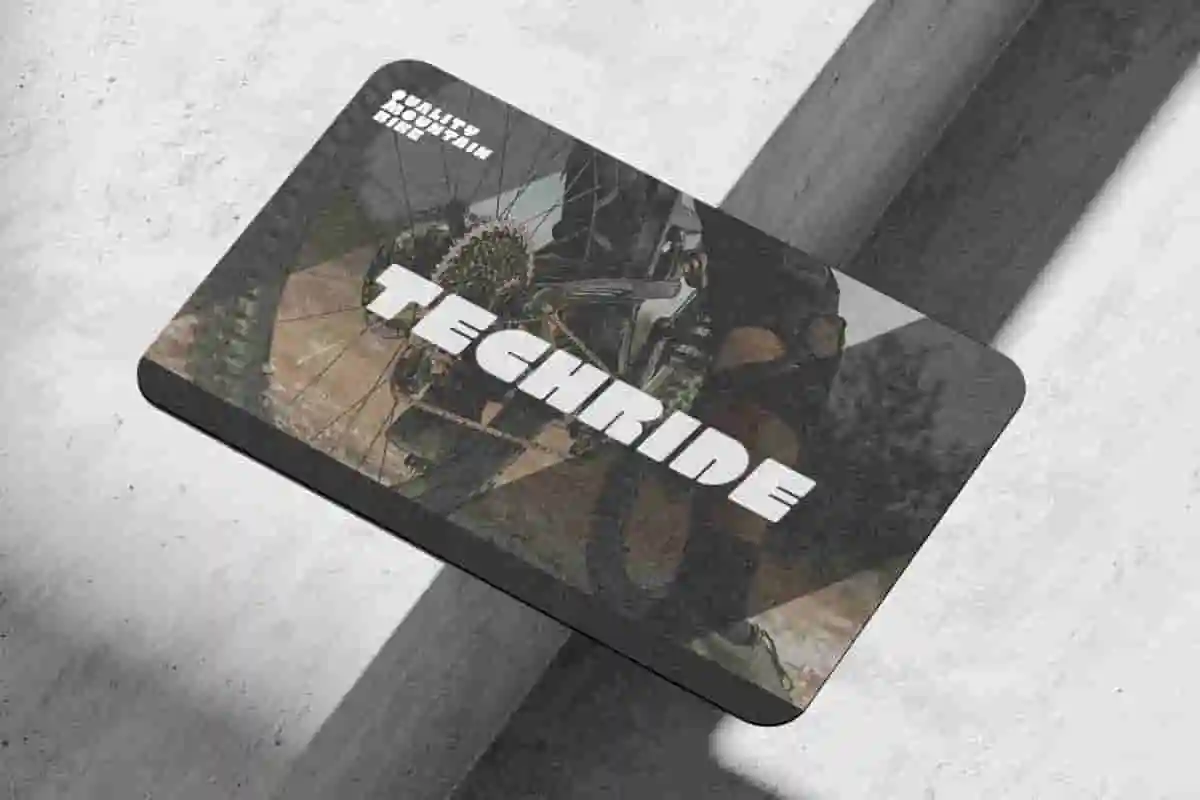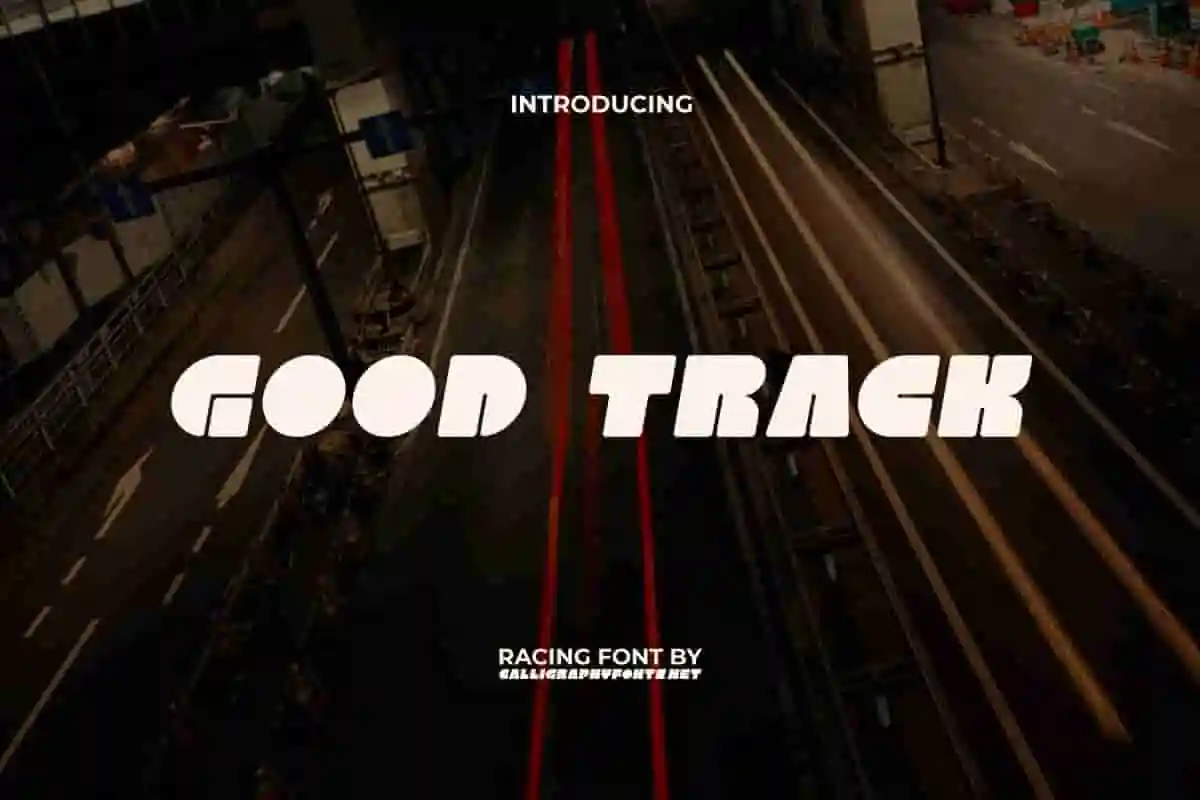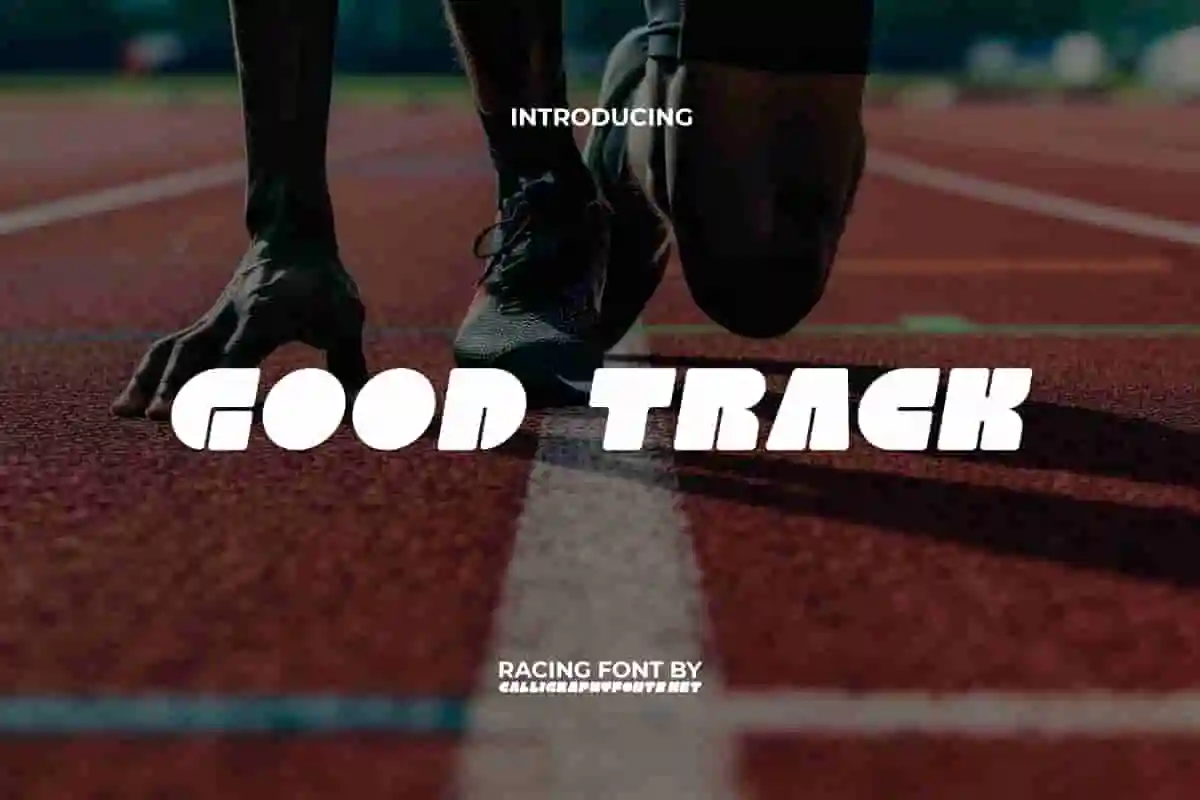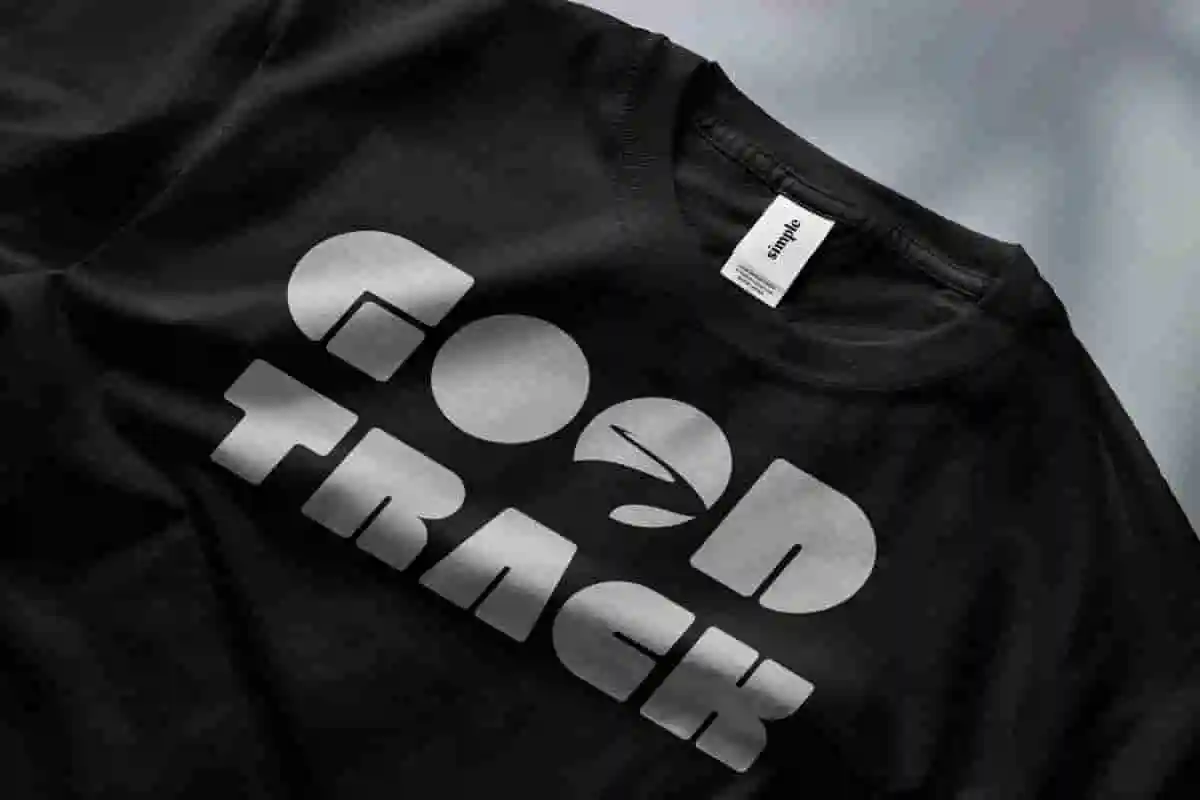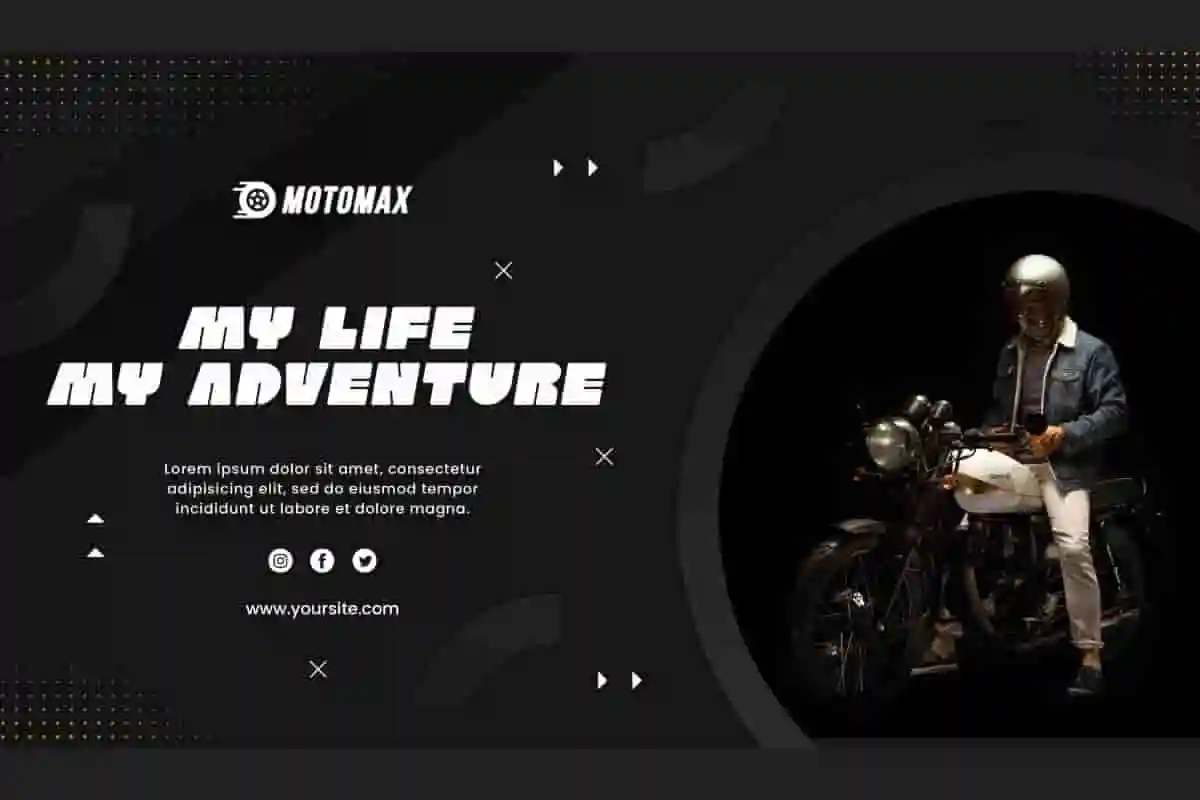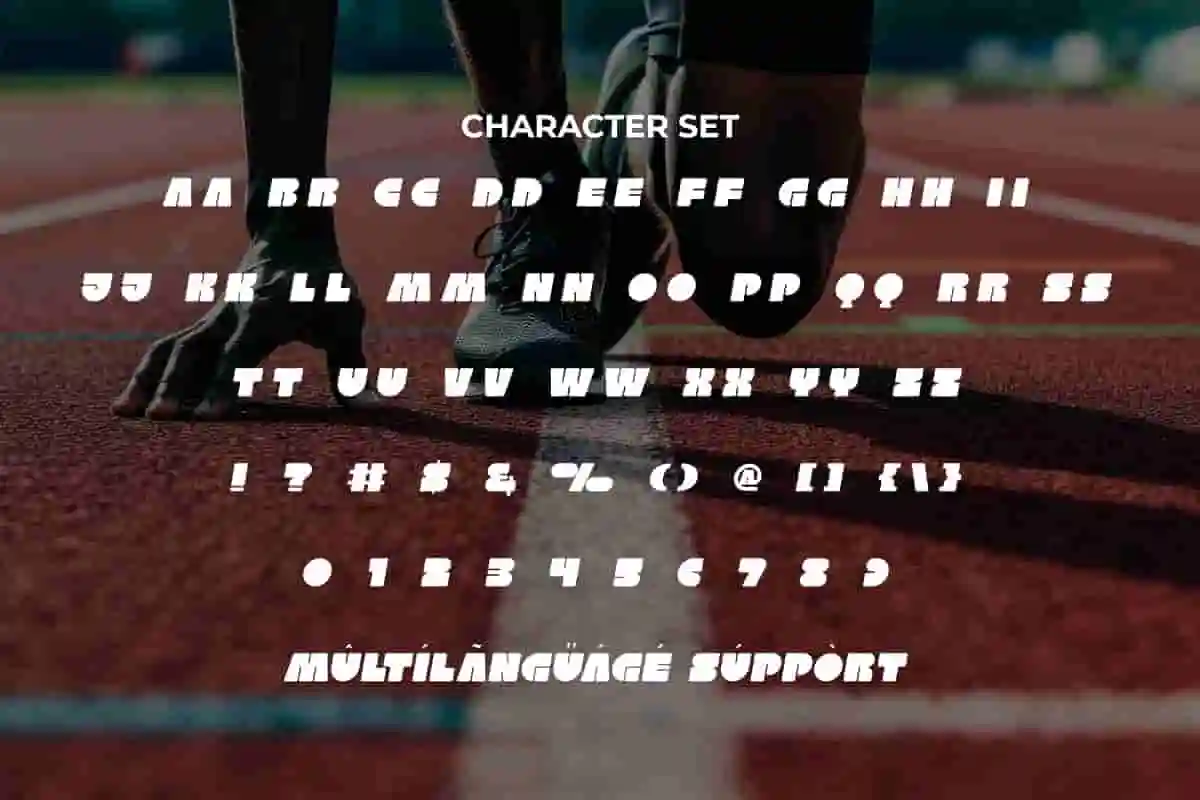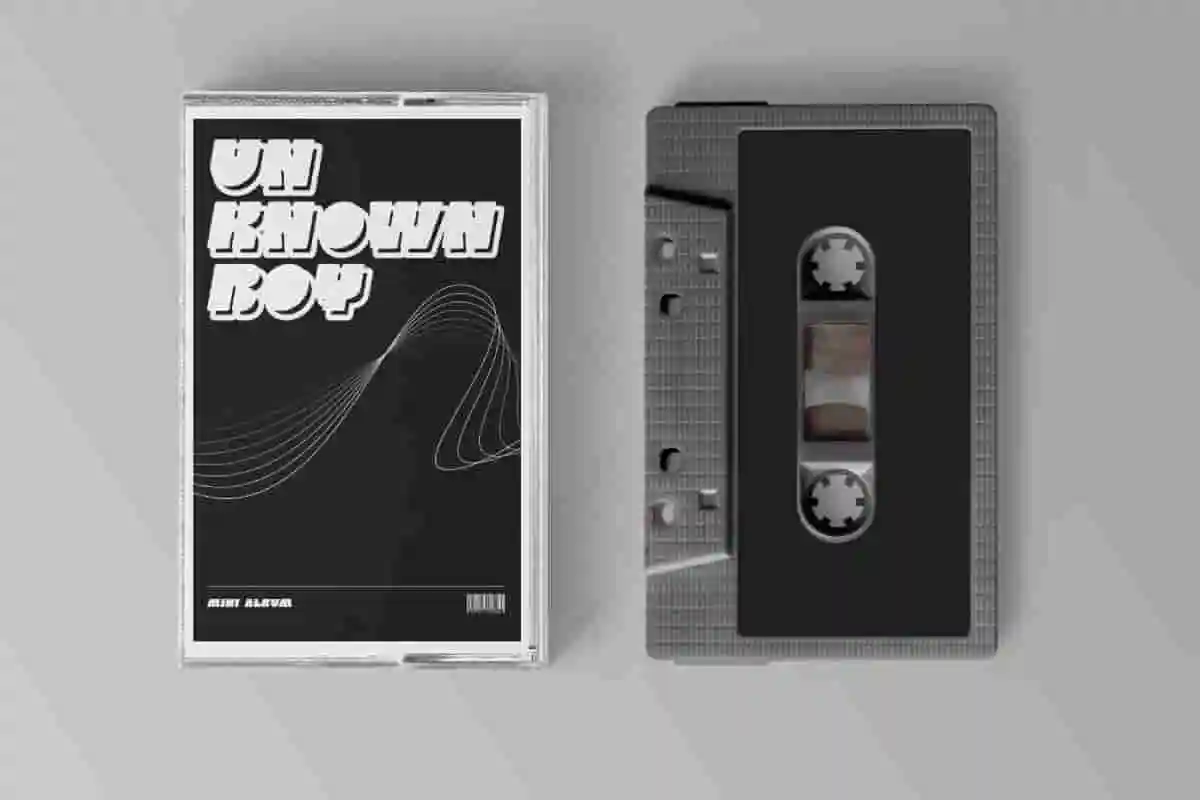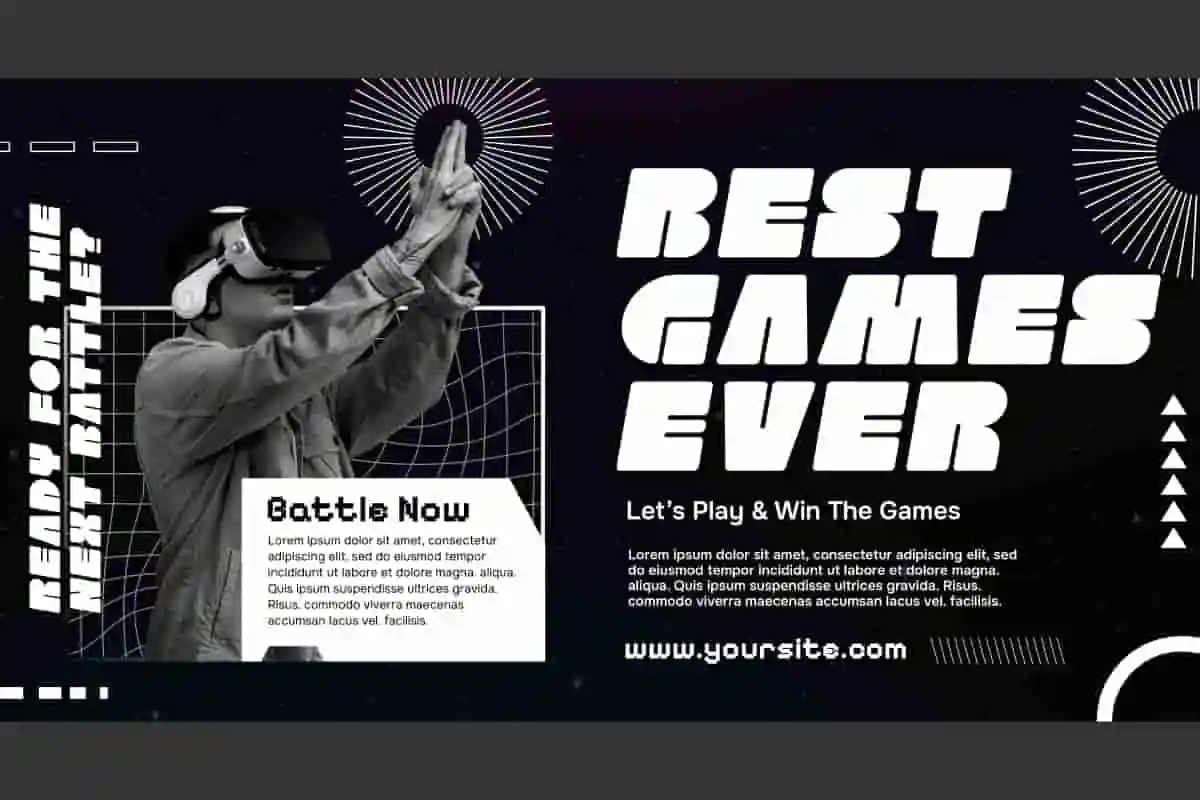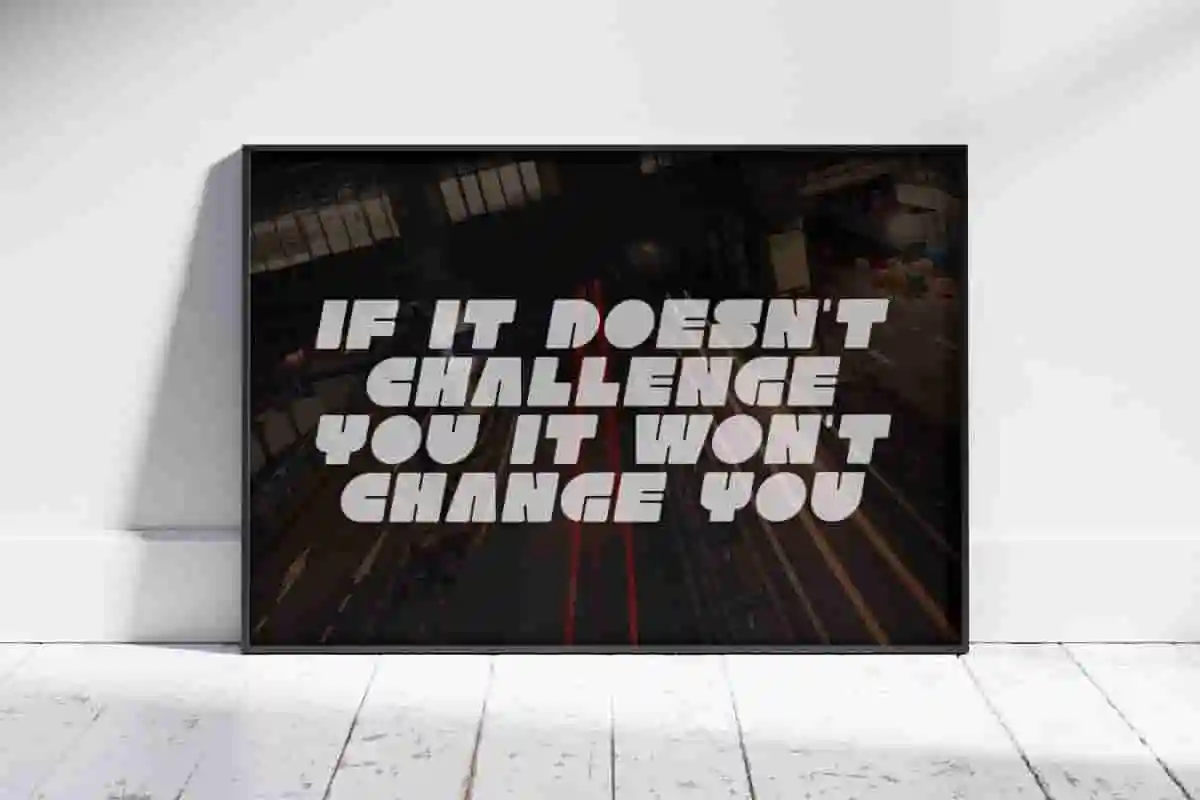
Good Track Display Font
Good Track Font is a futuristic sports display font inspired from the track. Create your design today and see how this font will transform it! You can use this font for any purpose, especially for things related to technology or sports.
Good Track Font is a modern and futuristic looking racing display font. This font is very suitable for application in projects that carry a sports theme. Perfect for banner, billboard, blogs, brand logo, brochure, business card, covers, decals, flyer, headers, mockup, monograms, poster, printed materials, stationery, t-shirt, template, title, website, and much more.
Introducing Good Track Display Font, a bold and dynamic display typeface designed to make your designs stand out with confidence and style. Whether you’re working on branding, posters, logos, album covers, or social media graphics, this font brings a powerful presence that grabs attention instantly. Crafted with sharp edges and modern character shapes, Good Track combines strength and style in a clean, versatile design.
Make your creative projects impossible to ignore with Good Track Display Font, a strong and energetic display font designed to add impact and style. Whether you’re designing logos, headlines, posters, or social media graphics, Good Track offers a modern, edgy look that commands attention. This typeface features sharp angles, clean lines, and a bold structure that brings confidence and clarity to your typography.
Step up your design game with Good Track Display Font, a bold and dynamic typeface crafted to capture attention and deliver your message with power. This display font is perfect for creatives looking to add strength and style to logos, posters, headlines, album covers, and social media visuals. With its sharp edges and modern geometric shapes, Good Track brings a confident and energetic vibe to any project.
Good Track Font has the basic visual characteristics of a slightly italic and bold sans serif initial letter in a unique style. Perfect for accessories and merchandise, automotive, clothing brand, cycling, fashion, games, graphic design, musician, outdoor sports, printing, publishing, sport racing, sportwear, transport advertising, vehicle showroom, and much more.